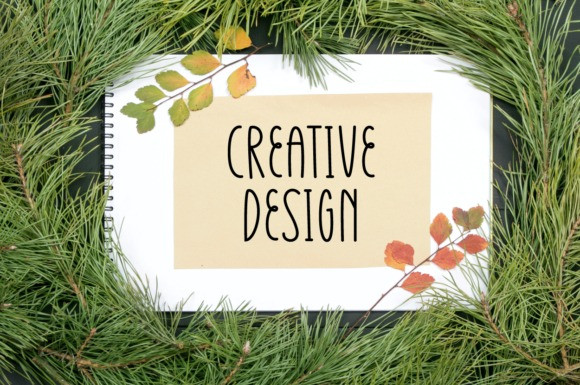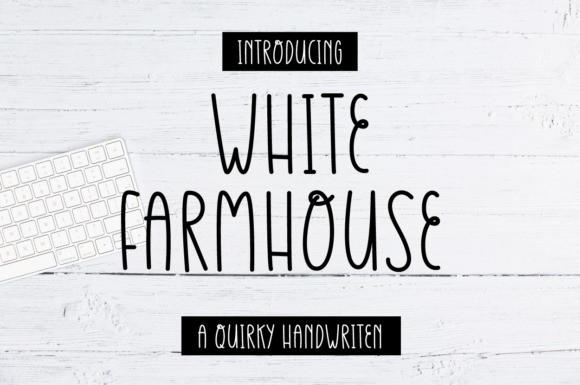
White Farmhouse Font
White Farmhouse Cute Font is a simple and interesting handwritten font. Its friendly feel makes this font incredibly versatile, fitting a wide range of contexts. It looks stunning on thank you cards, quotes, greeting cards, logos, business cards, and every other design which needs an artistic touch. Add it to your creative ideas, and notice how it makes them stand out!